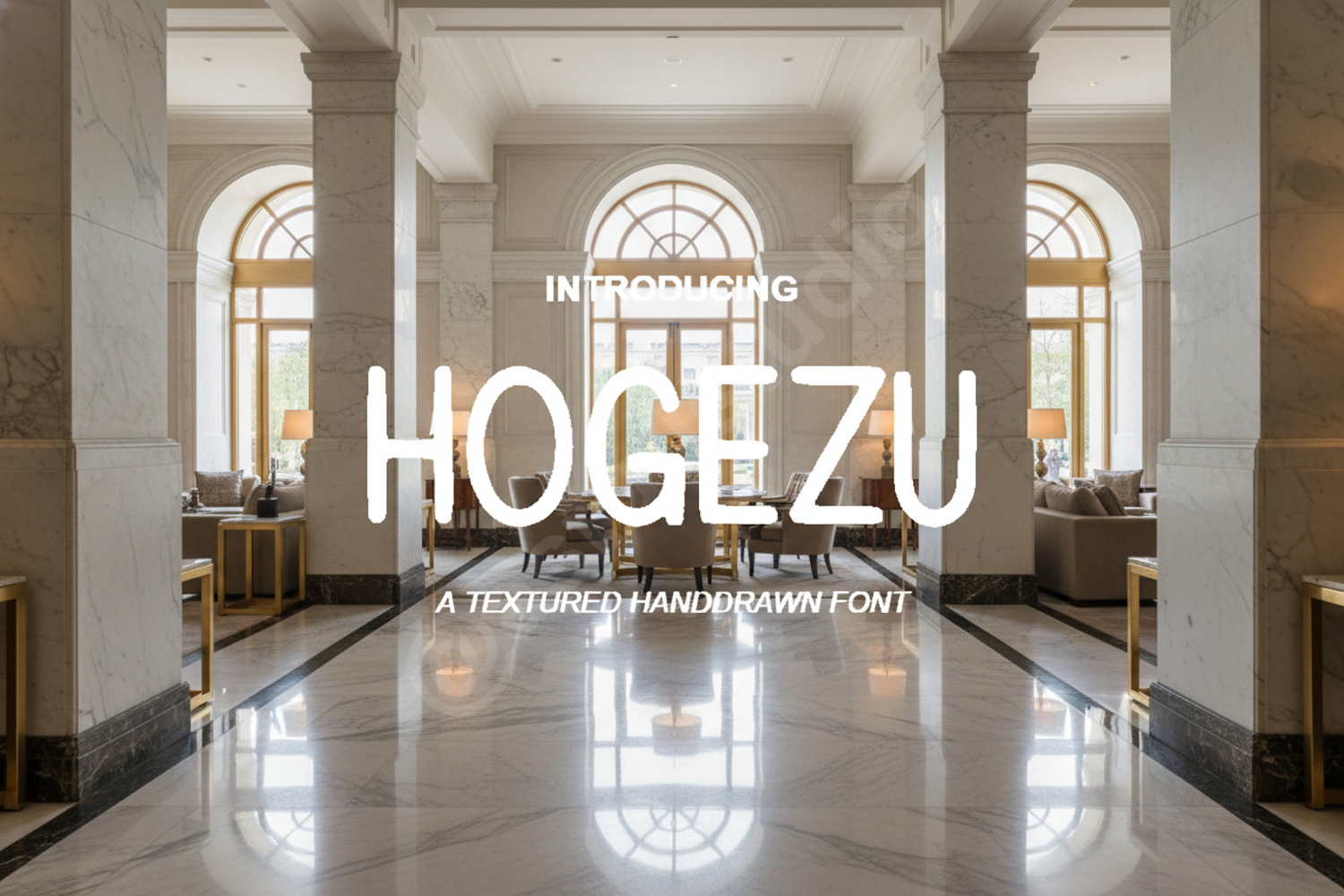
Hogezu - Bold Modern Geometric Sans
Hogezu
Elevate your creative projects with Hogezu, a premium sans-serif typeface that balances geometric precision with modern flair. Designed for designers who demand clarity and impact, Hogezu offers a clean aesthetic that works seamlessly across digital and print mediums. Its unique character shapes and balanced proportions make it an essential addition to any professional font library.
- Branding and Identity: Create memorable logos and brand marks that stand out.
- Editorial Design: Perfect for magazine headlines and sophisticated layouts.
- Digital Marketing: Enhance your social media graphics and website banners.
- Print Media: Ideal for posters, flyers, and high-end packaging.
- Corporate Presentations: Bring a professional and contemporary feel to your slide decks.